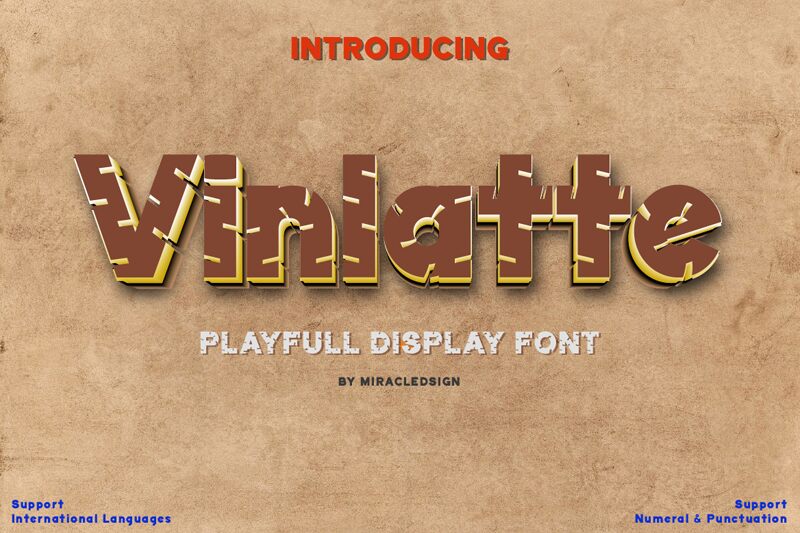
Vinlatte Alternate font is a free bold sans serif font designed by Miracledsign. It features clean geometric shapes and a contemporary feel. The design is straightforward with no unnecessary details for an easy-going minimalist effect.
The Vinlatte fonts are ideal for use on resumes, book covers, posters, physical advertisements, magazines, and websites. Other great uses are for interface texts, applications, product packaging designs, branding projects spanning from logos to business cards and much more.